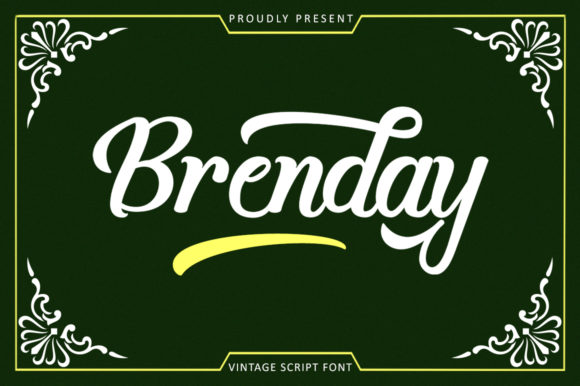
The Retro Charm of Brenday Font: A Designer’s Delight
I’ll never forget the time I was working on a branding project for a vintage-inspired clothing line. My client wanted a font that would transport their customers back to the good old days, but I was struggling to find the perfect fit. That’s when I stumbled upon Brenday Font, a retro-style handwritten font that instantly caught my eye. **Bold, clean, and effortlessly cool**, Brenday has since become one of my go-to fonts for a variety of design projects.
An Honest Review of Brenday Font
What I Love About Brenday Font
• ✨ Retro charm: Brenday Font has a unique, nostalgic feel that’s perfect for designs that require a vintage touch.
• ✅ Clean and legible: Despite its bold and playful nature, Brenday Font remains surprisingly easy to read, making it suitable for a wide range of applications.
• 💡 Versatile: From t-shirts and signage to logos, branding, and packaging, Brenday Font can be used in countless creative projects.
While Brenday Font is an excellent choice for many designs, there are a few things to keep in mind:
• 🤔 Limited formal applications: Due to its bold and playful nature, Brenday Font might not be the best fit for formal or corporate designs.
• ⚠️ Overuse can be overwhelming: As with any bold font, using Brenday Font excessively can be overwhelming. Balance is key to making the most of its impact.
The Story Behind Brenday Font
Brenday Font was created with the goal of capturing the carefree spirit of retro design. Its designer drew inspiration from classic signage, vintage advertisements, and handwritten notes from the past. The result is a font that’s both nostalgic and modern, making it perfect for a wide range of creative projects.
What type of projects is Brenday Font best suited for? Brenday Font is ideal for designs that require a bold, playful, and retro touch, such as t-shirts, signage, logos, branding, and packaging.
Is Brenday Font easy to read? Yes, despite its bold nature, Brenday Font is surprisingly easy to read, making it suitable for a wide range of applications.
Does Brenday Font come with OpenType features? Yes, Brenday Font comes with a range of OpenType features, including stylistic alternates and glyphs, which can be accessed in compatible design software.